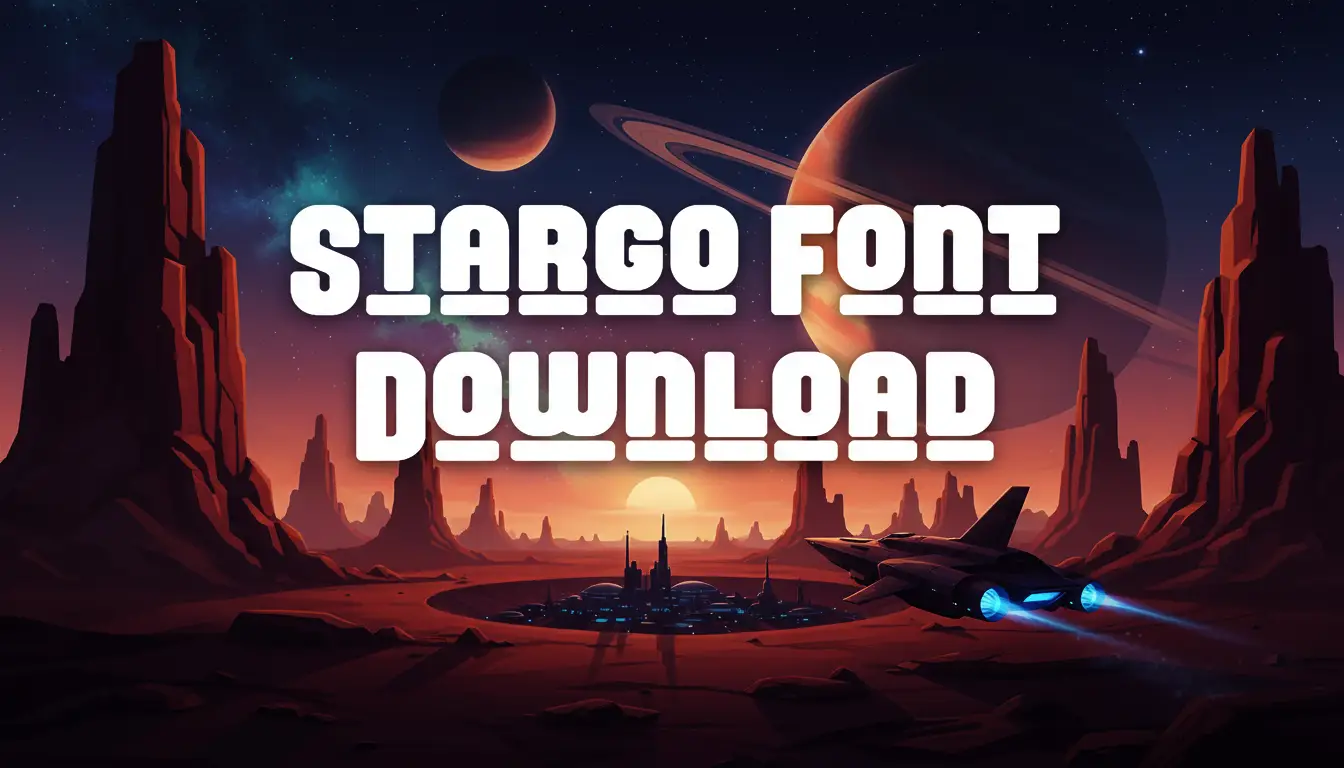
Indonesian type designer Bangkit Tri Setiadi designed Stargo, a bold, modern rounded sans-serif display font, and published it through Blankids Studio in March 2023. Blending clean, structural lines with soft geometric corners, he engineered it to evoke a sense of playfulness and infinite imagination, making it highly visually stimulating at large sizes.
Stargo
Stargo is a sans serif font created by Bangkit Tri Setiadi and released through Blankids Studio.
- Designer: Bangkit Tri Setiadi
- Publisher: Blankids Studio